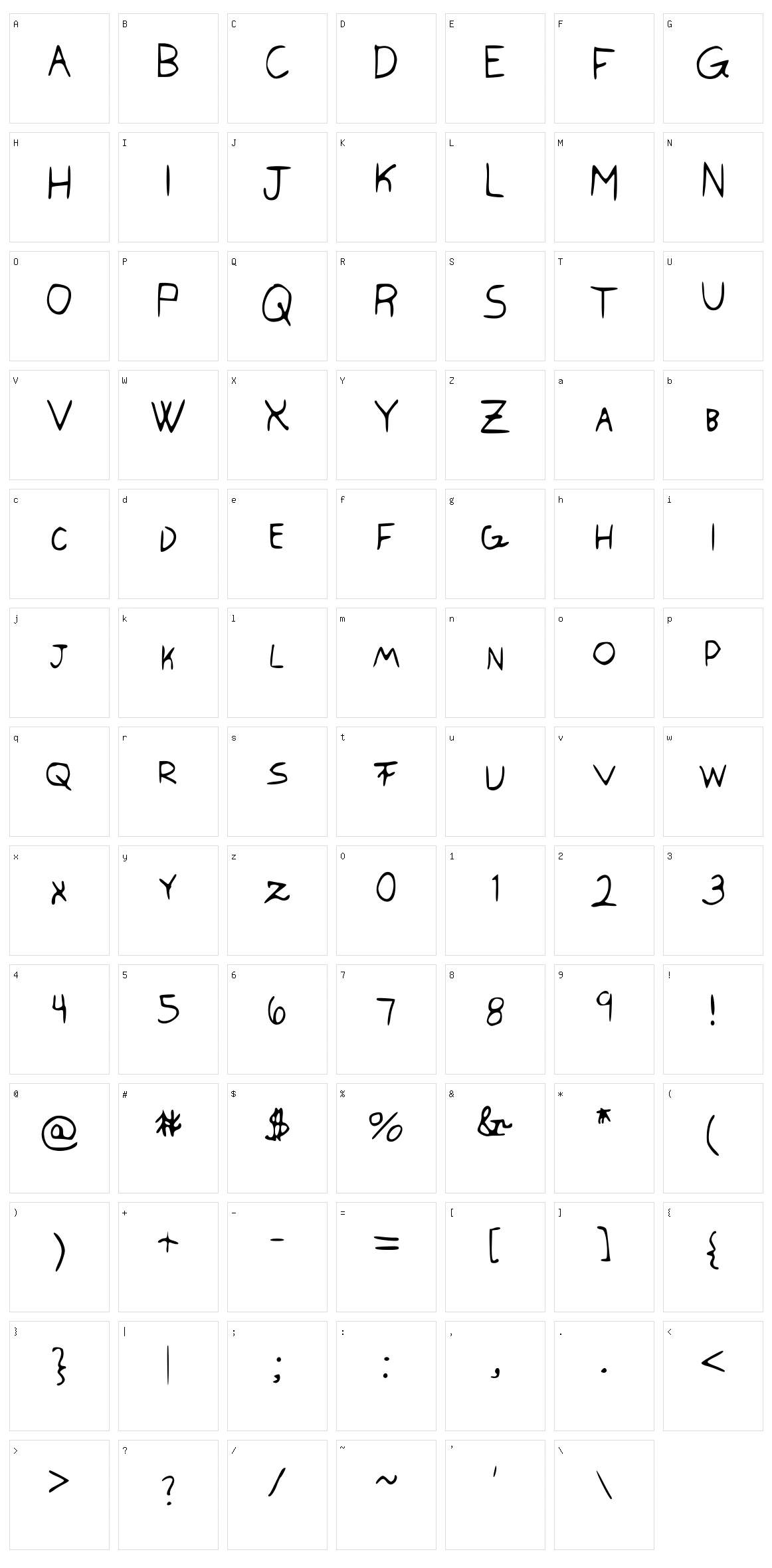
The free font Swagger Capitals is carefully designed by Jake Luedecke, showcasing a thoughtful balance of creativity and usability and falls under the Script font style. When you download the ZIP file, it contains only 12.11 KB of font files, making it lightweight and quick to download. Please review the license details below to understand permitted usage and distribution rights. If license information is not available, we recommend using this font for personal projects only or contacting the author directly for commercial usage permissions.